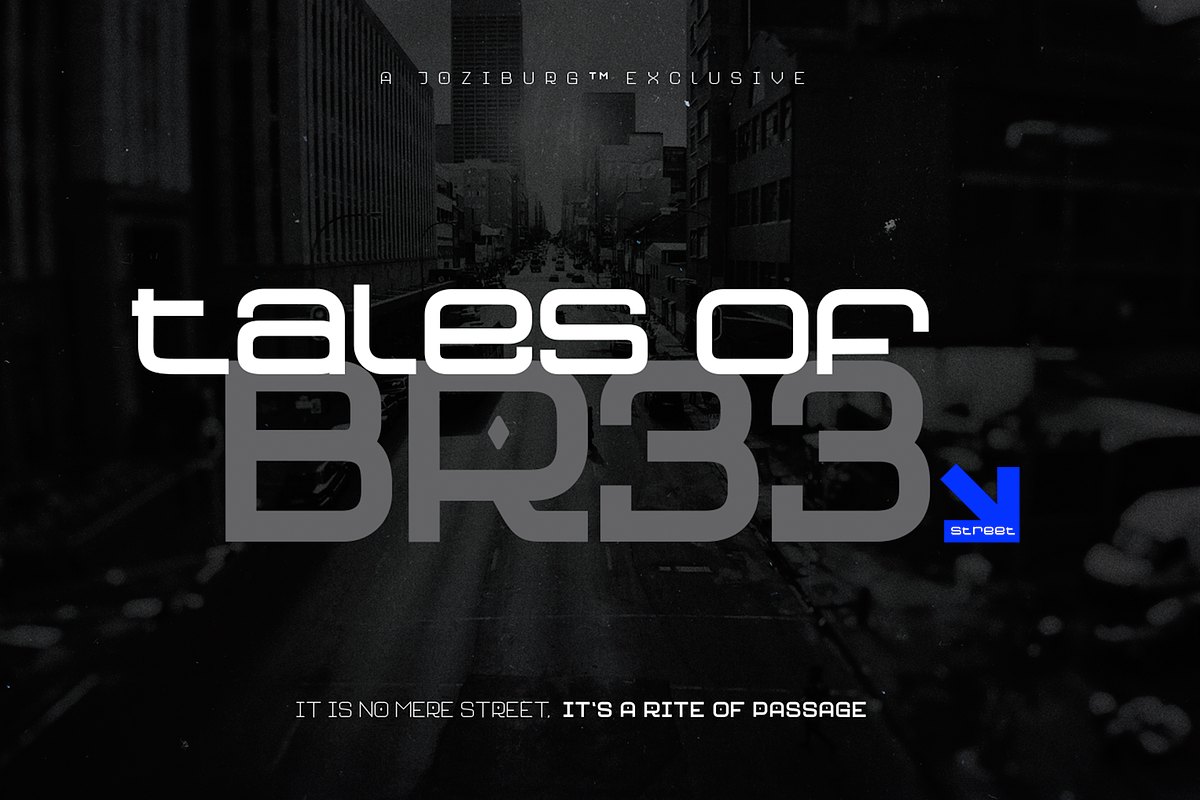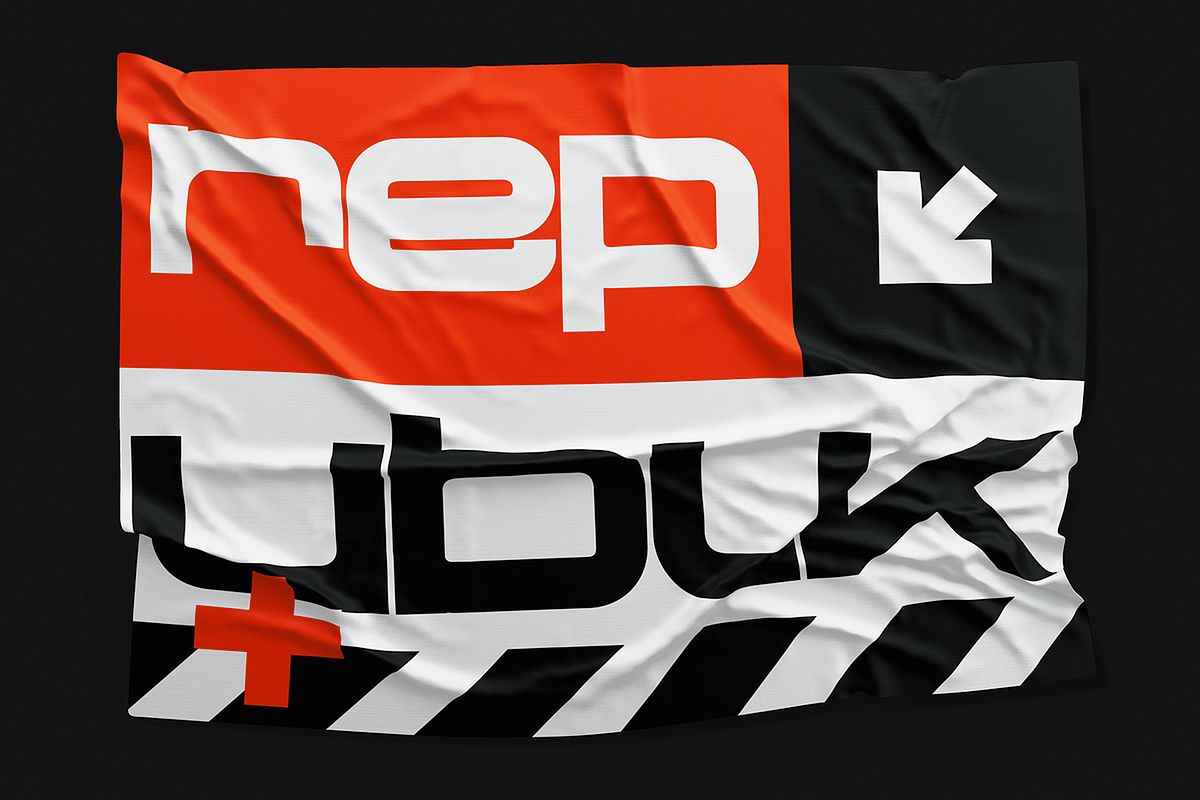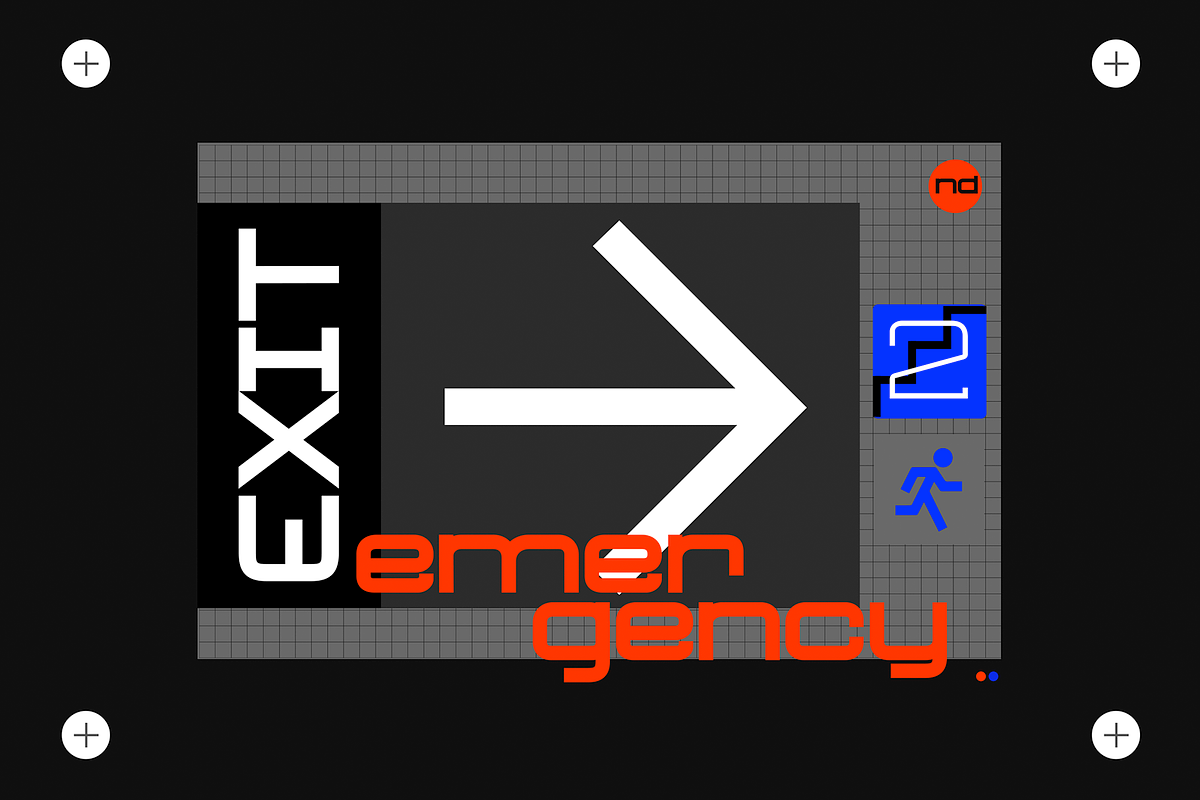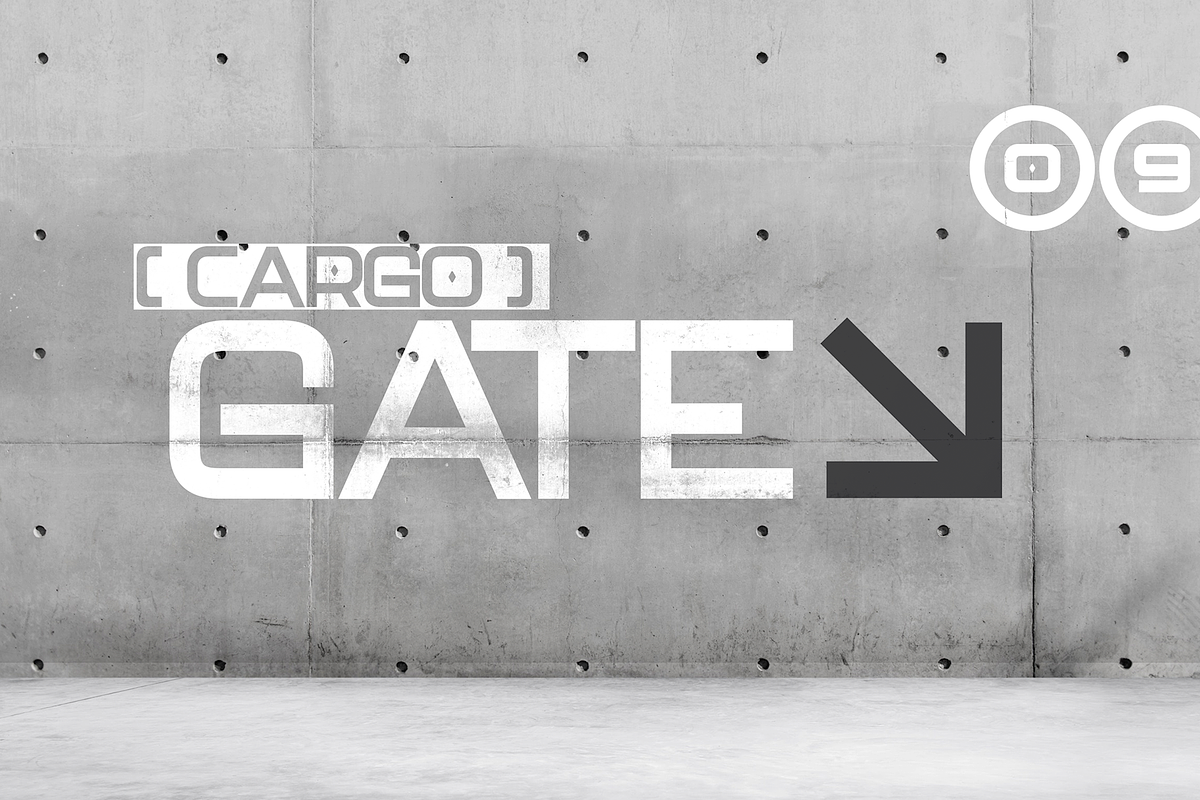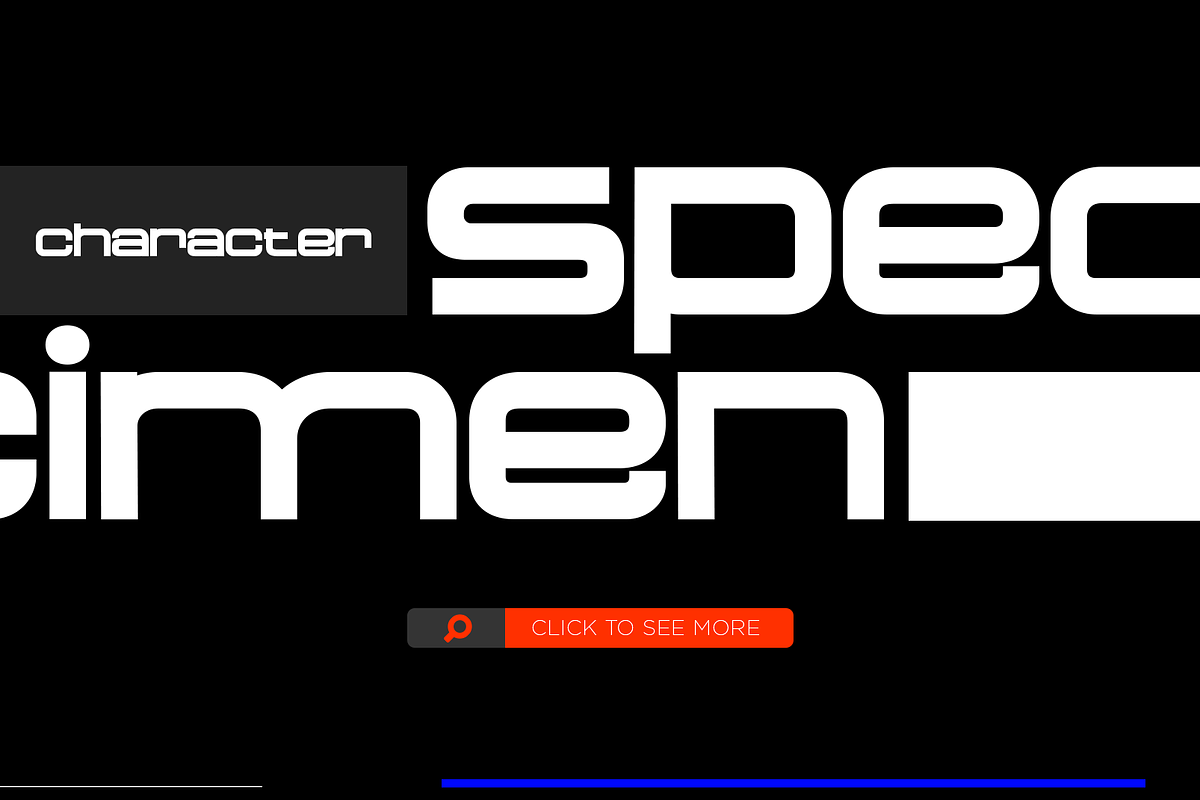
Neo Afrique Sans | Modern Art Deco
Neo Afrique sans a neo-futuristic typeface with a modern decorative twist. This typeface design came out of further development and refinement on an original typeface that i created some time ago, Durango Sans.
True in nature to it's predecessor, Neo Afrique was also born out of this desire to fuse two different aesthetics, the geometric neo-futuristic aesthetic which i can best describe by referencing the move blade runner, fused with flourishing decorative forms from art nouveau and the later lubalinesque aesthetics.
Neo Afrique comes packed with many great features including alternate characters, arrows, ligatures, multiple numerals types and extended language support.
This typeface comes in four styles:
- Light
- Book
- Medium
- Bold
Open Type Features:
- Up to 5 Stylistic Alternates per glyph
- Uppercase and lowercase Normal & Tabular Numerals
- Special use circled numerals
- Fractions and Numerators/Denominators
- Alternate Symbols
- Arrows
Latin Character Support:
- Basic Latin Charcters
- Western European Charcters
- Central European Charcters
- South Eastern European Charcters
Cyrillic Character Support:
- Basic Cyrillic Characters
- Bulgarian Cyrillic Characters
- Bulgarian Italic Cyrillic Characters
- Historic Bulgarian Cyrillic Characters
- Serbian Cyrillic Characters
- Macedonian Cyrillic Characters
- Serbian Italic Characters
- Ukrainian Characters